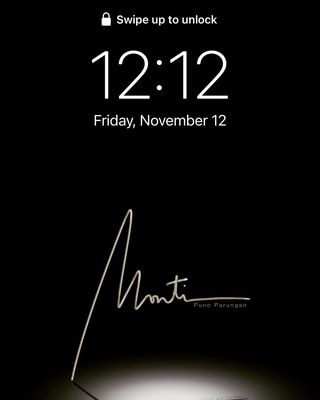
Looks like a custom handwritten signature to be frank.
Do you know something similar to this typeface? Thanks.
I like to use this one: Photograph Signature Font | dafont.com